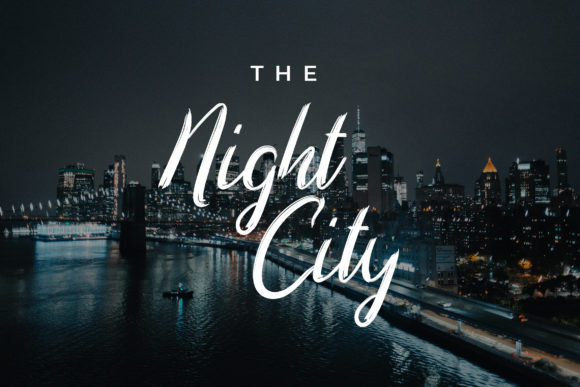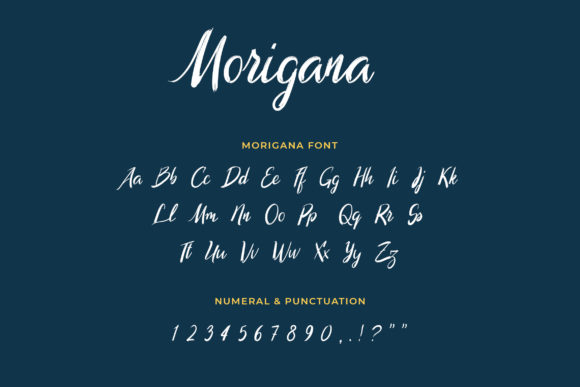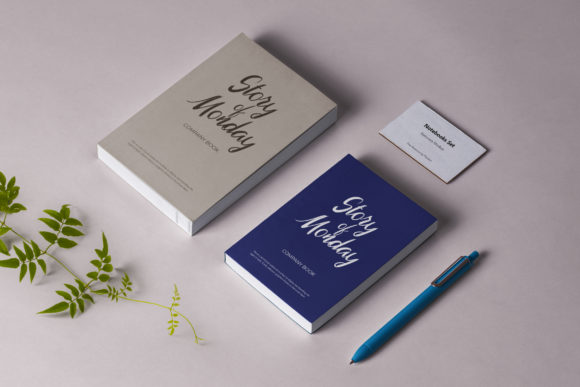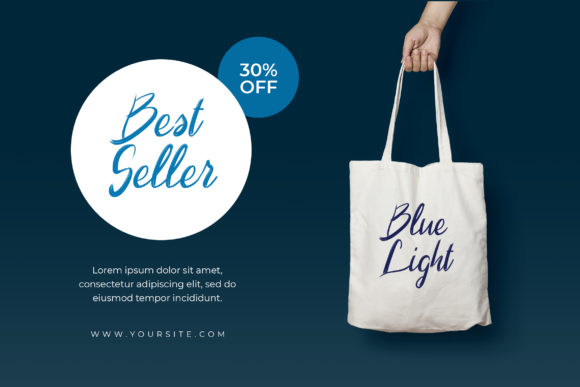
Introduction to Morigana Font Font
Fonts play a crucial role in design, and the Morigana Font font is a typeface that brings both character and versatility to any project. Whether you’re working on a branding project, a website, or a print design, the Morigana Font font offers a unique style that can elevate your work.
Morigana is a modern script font that is readable, brushed and stylish.
It is defined by smooth curves and is perfect for fashion branding or editorial designs Add it confidently to your projects, and you will love the results.
Key Features of Morigana Font Font
Why Choose Morigana Font Font?
The Morigana Font font is more than just a typeface – it’s a design tool that helps you communicate your message with style and clarity. Its unique character set and versatile design make it suitable for a wide range of applications, from elegant invitations to bold headlines.
With its carefully crafted letterforms and balanced proportions, the Morigana Font font ensures readability and visual appeal across all mediums.
What makes Morigana Font font special?
The Morigana Font font stands out with its unique design, exceptional readability, and versatility across various design applications.